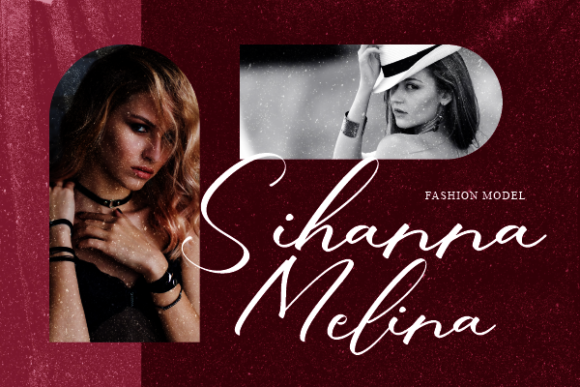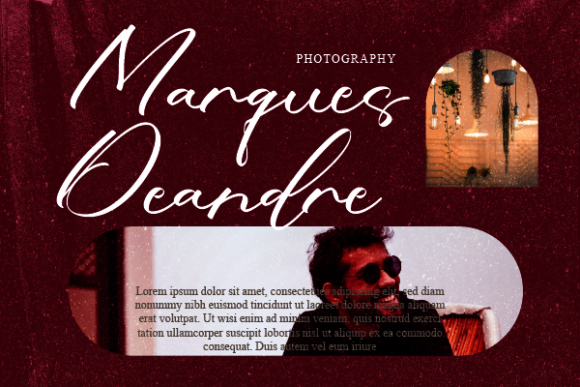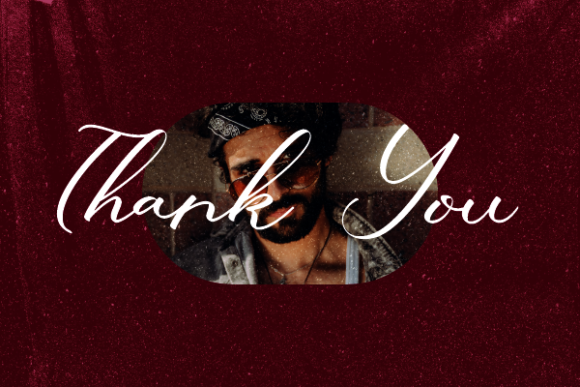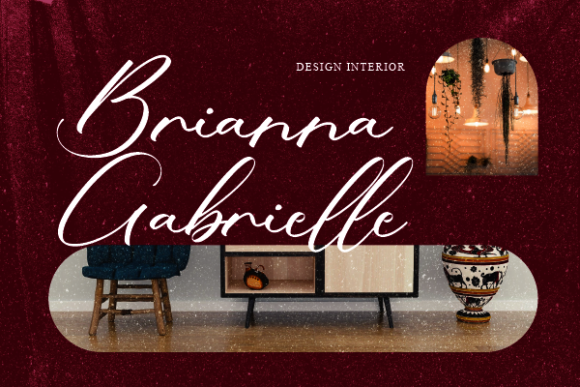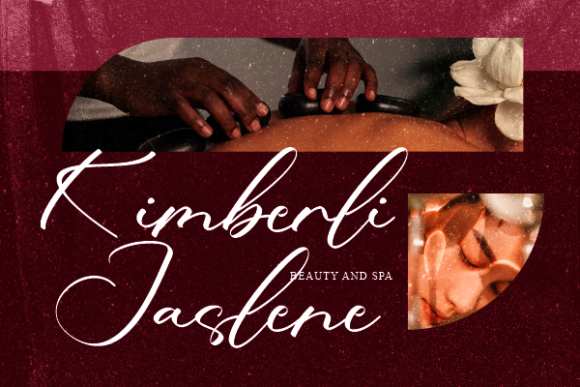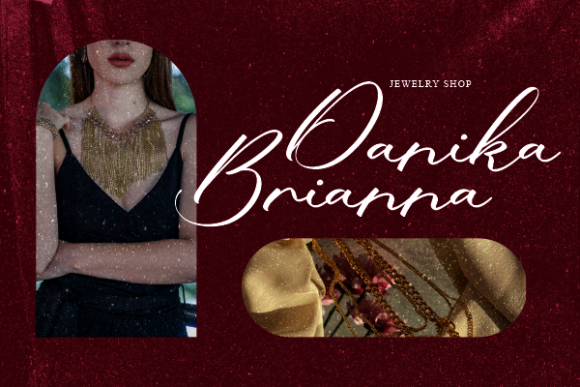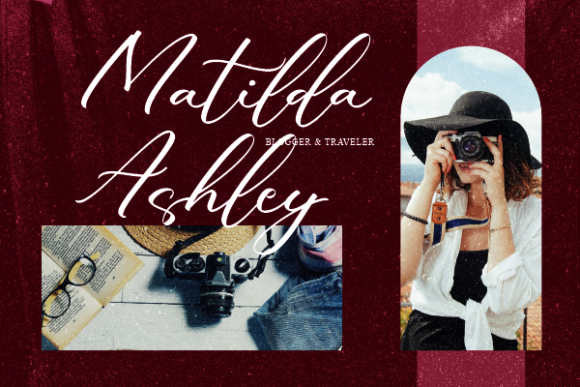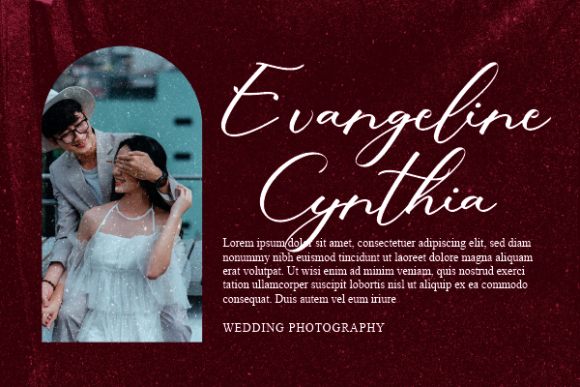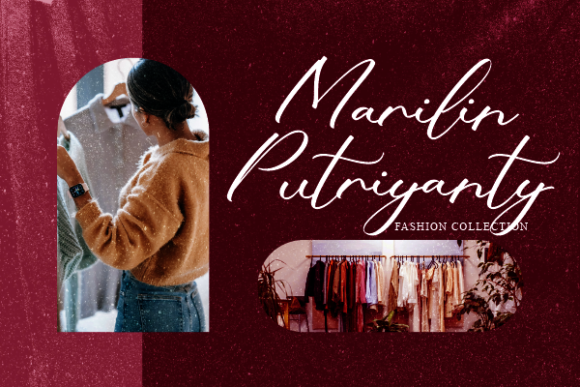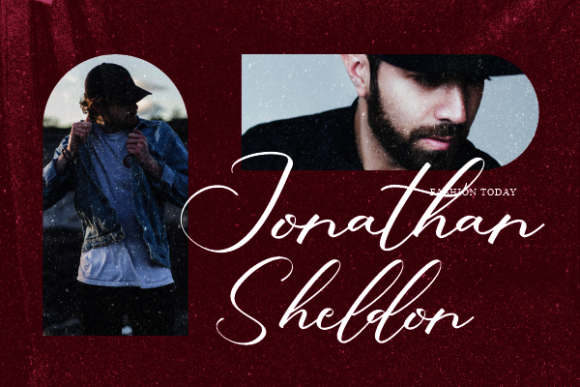
Yamileth Zendaya Font
About Yamileth Zendaya Font
Yamileth Zendaya is a font that encapsulates the essence of sweetness and friendliness, brought to life through the strokes of handwritten artistry. Its charm lies in its ability to seamlessly blend into a myriad of design concepts, adapting effortlessly to various themes and purposes. The bounds of creativity are shattered when you embrace the possibilities of this font – the only limit is the extent of your imagination!
Imagine your design projects as a playground of endless potential, with Yamileth Zendaya as the key that unlocks a world of creative freedom. This font is not merely a set of characters; it’s a conduit for your ideas to take shape, a vessel through which your imagination can flow. As you integrate Yamileth Zendaya into your designs, you’ll witness the transformation of your concepts into tangible works of art that stir the senses.
Yamileth Zendaya’s natural and unique style infuses your projects with a sense of authenticity and human touch. Every stroke tells a story, every curve evokes emotion, making your designs resonate on a personal level. Whether you’re designing invitations, posters, logos, or anything in between, Yamileth Zendaya becomes the bridge between your creativity and your audience’s hearts.
What makes Yamileth Zendaya truly special is its ability to transcend the confines of traditional typography. It beckons you to explore uncharted territories, to experiment with novel ideas, and to push the boundaries of conventional design. With each stroke of this font, your designs gain a personality of their own, a reflection of your imagination and the font’s inherent charm.
As you embark on your design journey with Yamileth Zendaya, you’ll discover that the results are nothing short of magical. The font’s sweet and friendly demeanor breathes life into your creations, infusing them with a sense of joy and approachability. It becomes a trusted companion, enhancing your ideas and helping you bring them to fruition in ways that captivate and inspire.
So, let Yamileth Zendaya be the star of your creative show. Allow its natural grace and unique character to elevate your projects to new heights. Embrace the boundless possibilities it offers, and watch as your imagination takes flight, creating designs that are not only visually stunning but emotionally resonant.